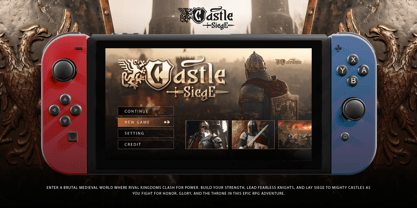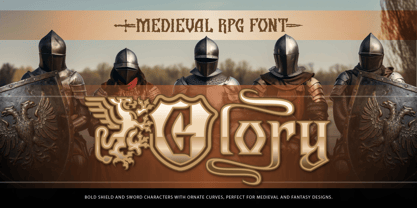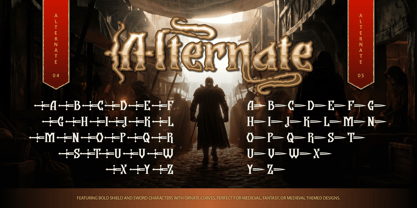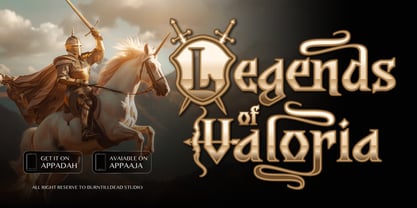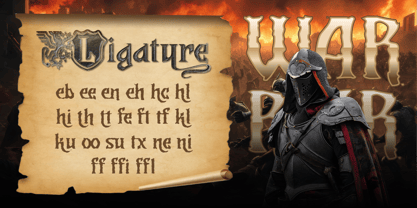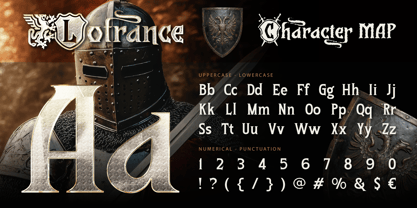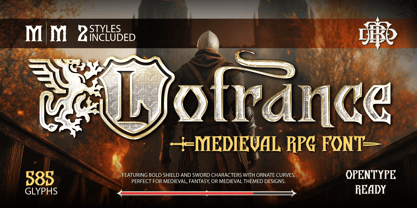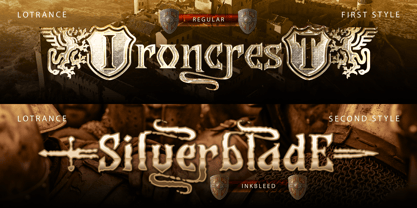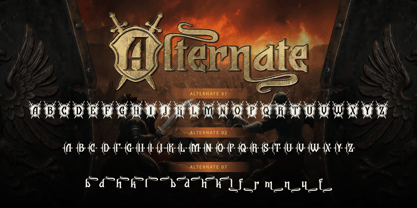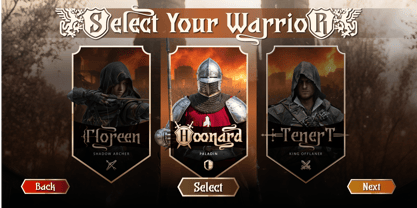
Lotrance
by Burntilldead
The Lotrance Font Family was designed by Eric Kurniawan and published by Burntilldead. Lotrance contains 2 styles and family package options. More about this family
Lotrance is a bold medieval display font inspired by the world of knights, kingdoms, and epic fantasy adventures. Designed with detailed shield-style letters, sword ornaments, and elegant curves, this font brings a strong medieval atmosphere to any design. Each character is carefully crafted to create a powerful and heroic look, perfect for titles that need a dramatic and legendary feel. Whether you're designing a fantasy game, movie title, or medieval themed branding, Lotrance helps your project stand out with its distinctive style. Perfect for projects such as game titles, fantasy book covers, movie posters, RPG interfaces, branding, merchandise, medieval themed designs, game UI / UX, logos & branding.